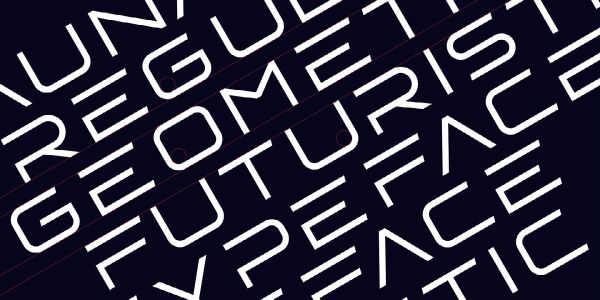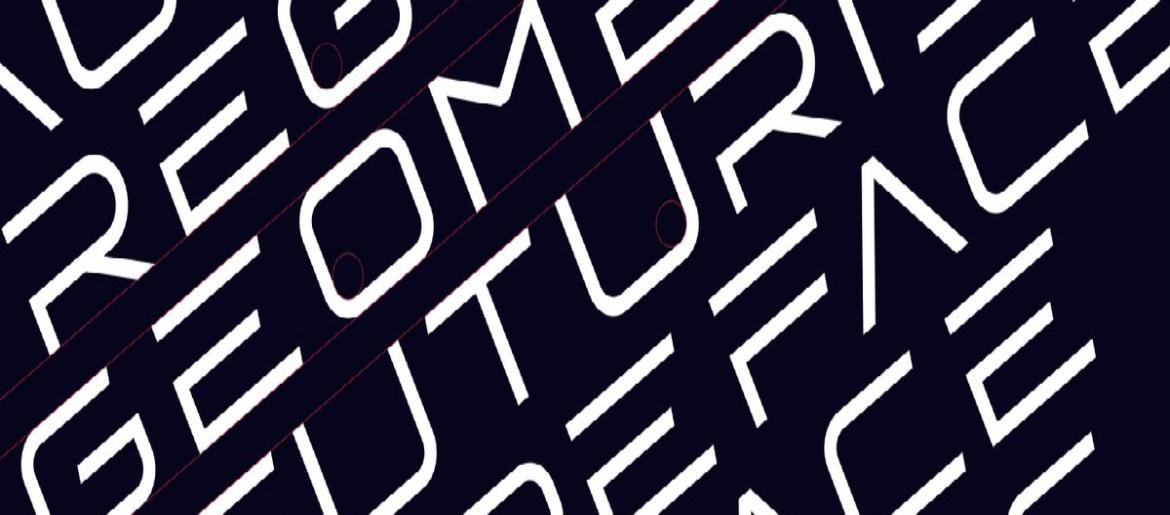
Fauna Font
Fauna font (thin) by Taras Pasternak is a geometric futuristic display typeface that blends the visual precision of hi-fi electronics with the austere discipline of Constructivism. Its square forms, straight lines, and bold structured letterforms strike a confident balance between minimalism and personality — clear enough to read at a glance, distinctive enough to anchor any modern design. Well-suited to logos, poster headlines, social media content, and tech-forward branding, Fauna brings futuristic authority without sacrificing legibility. The Thin weight is available free to try.